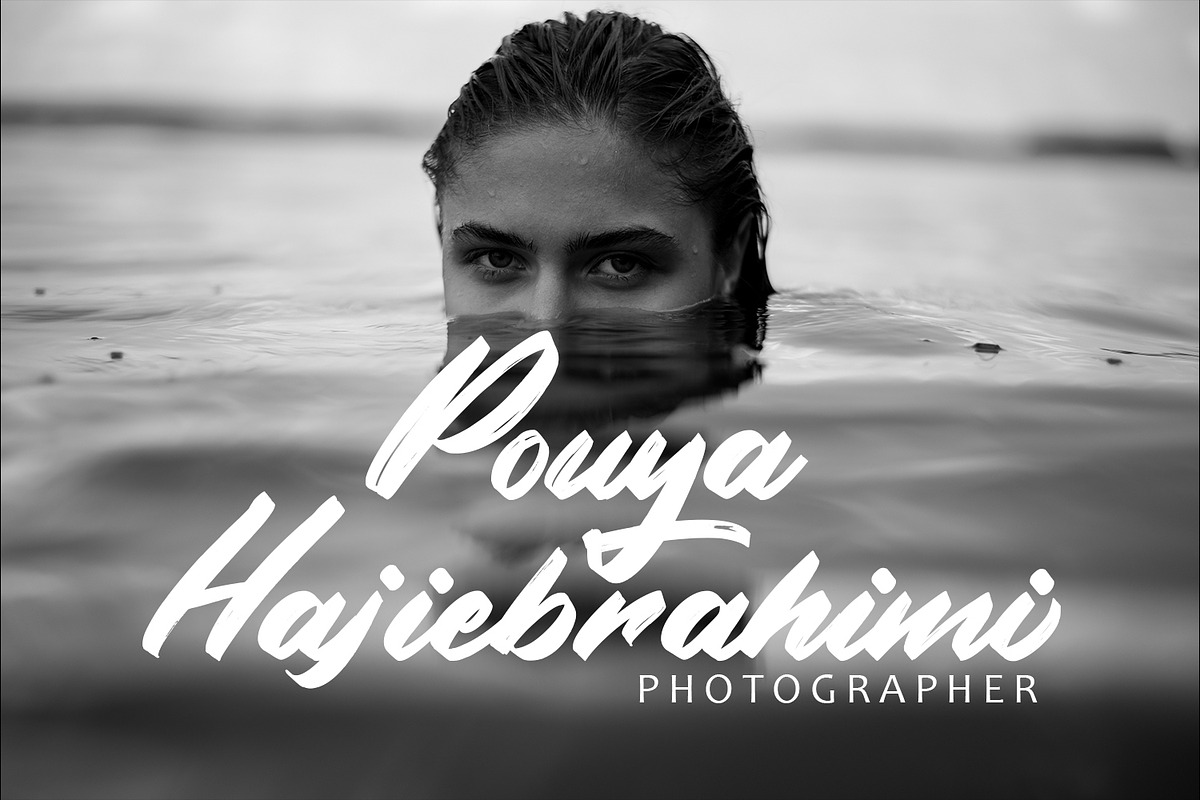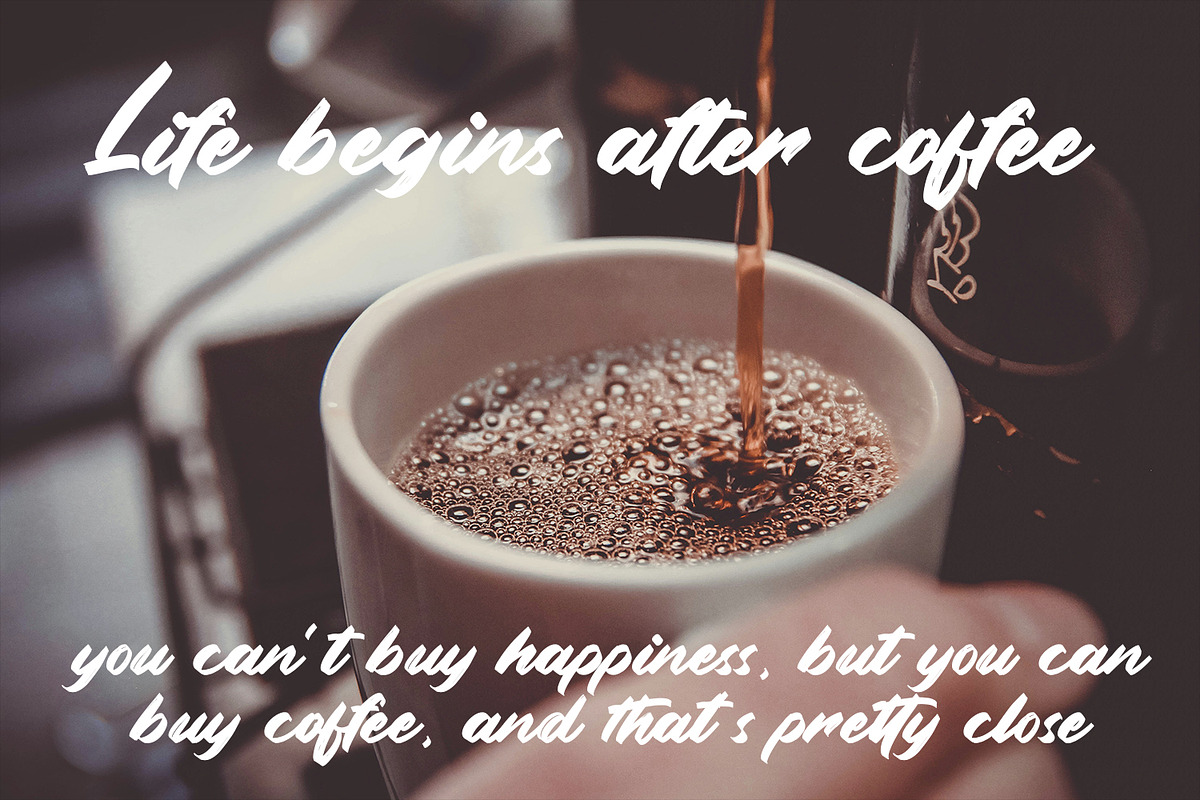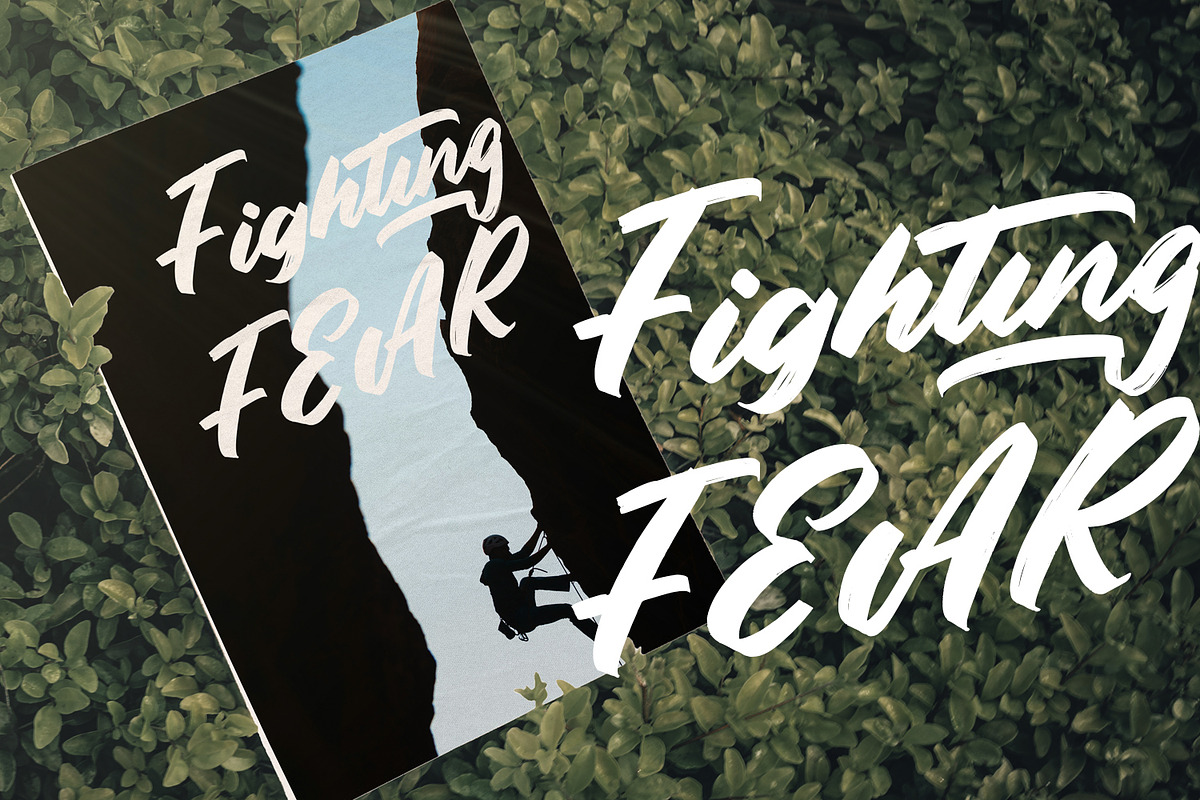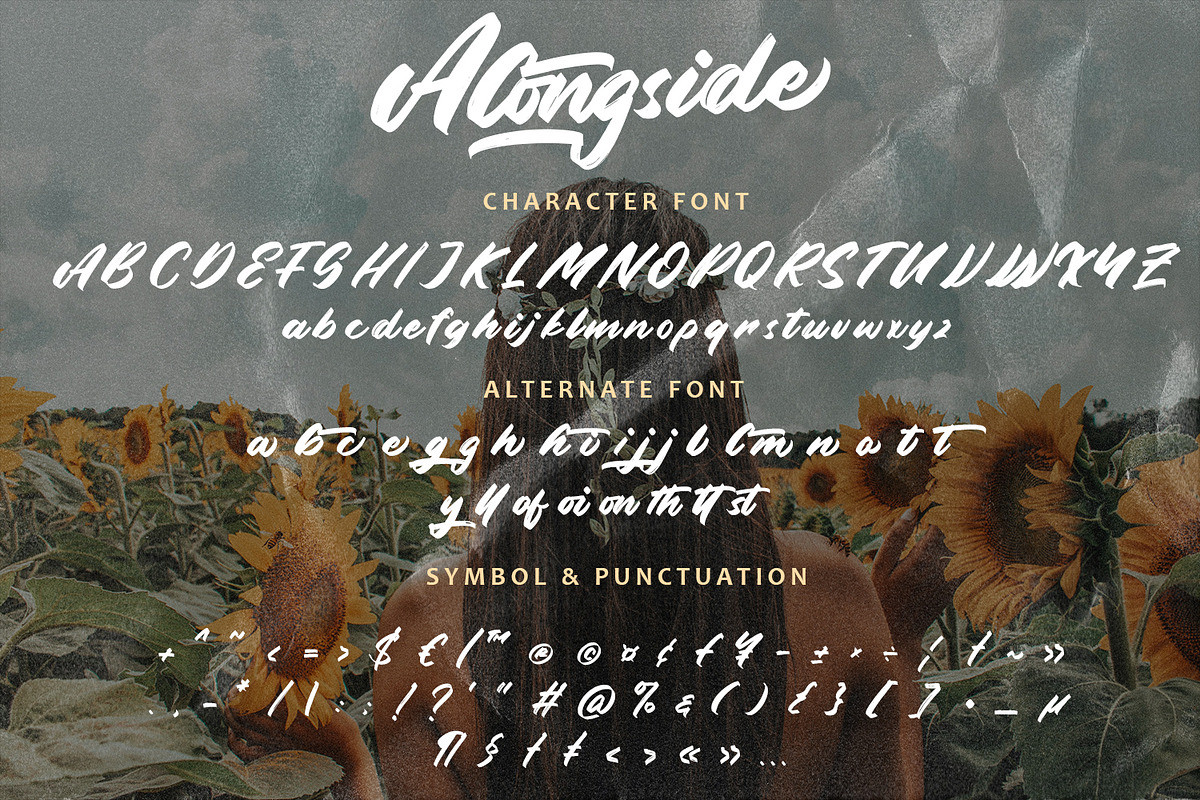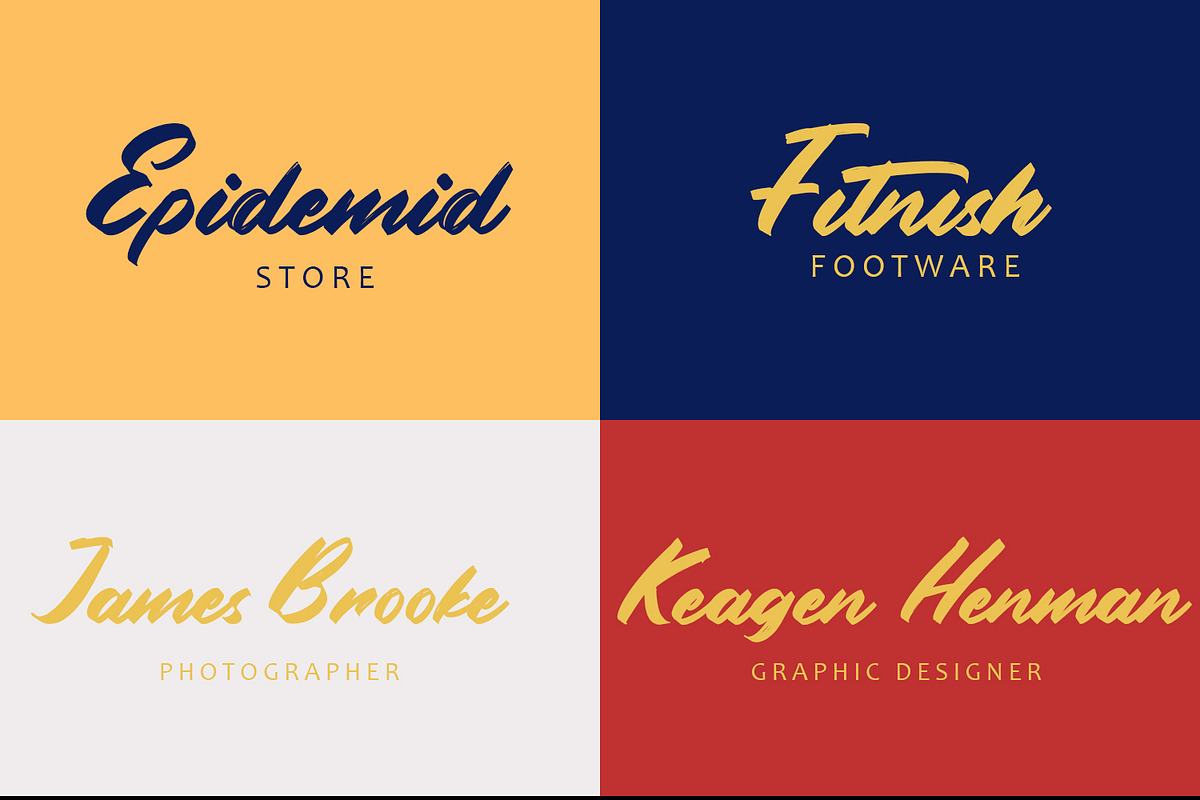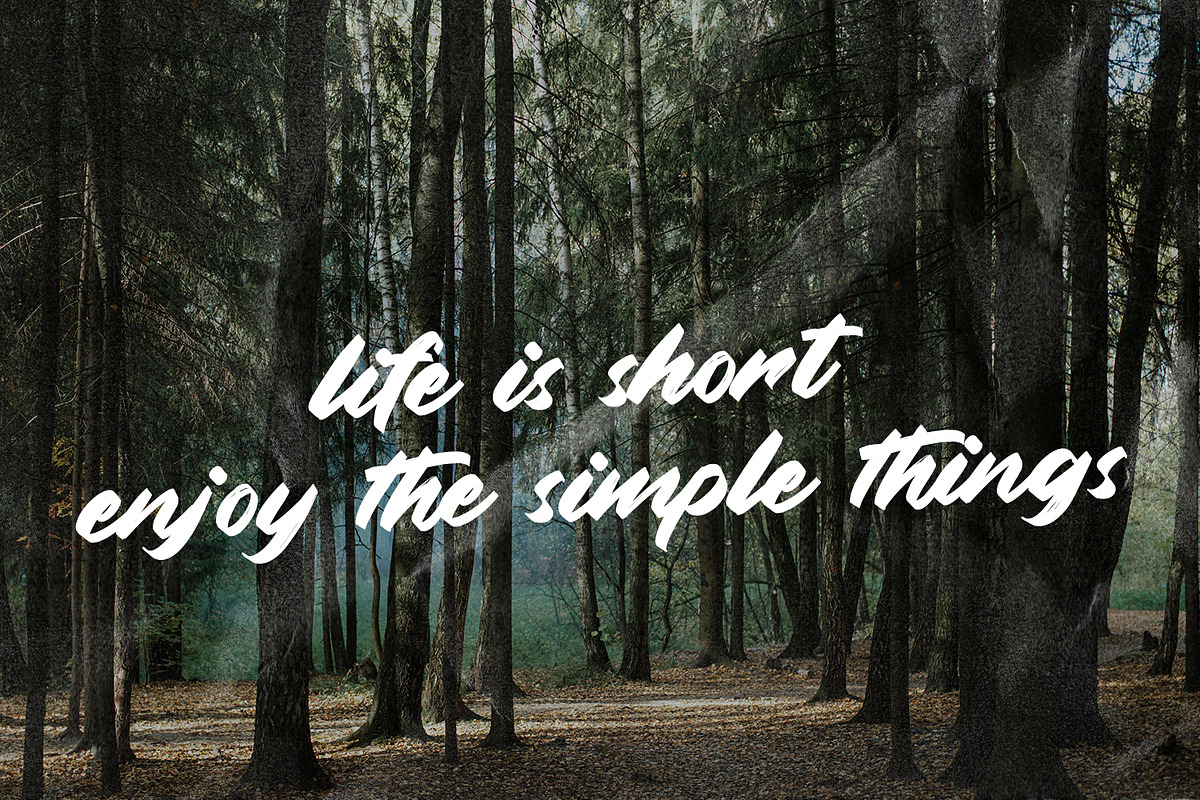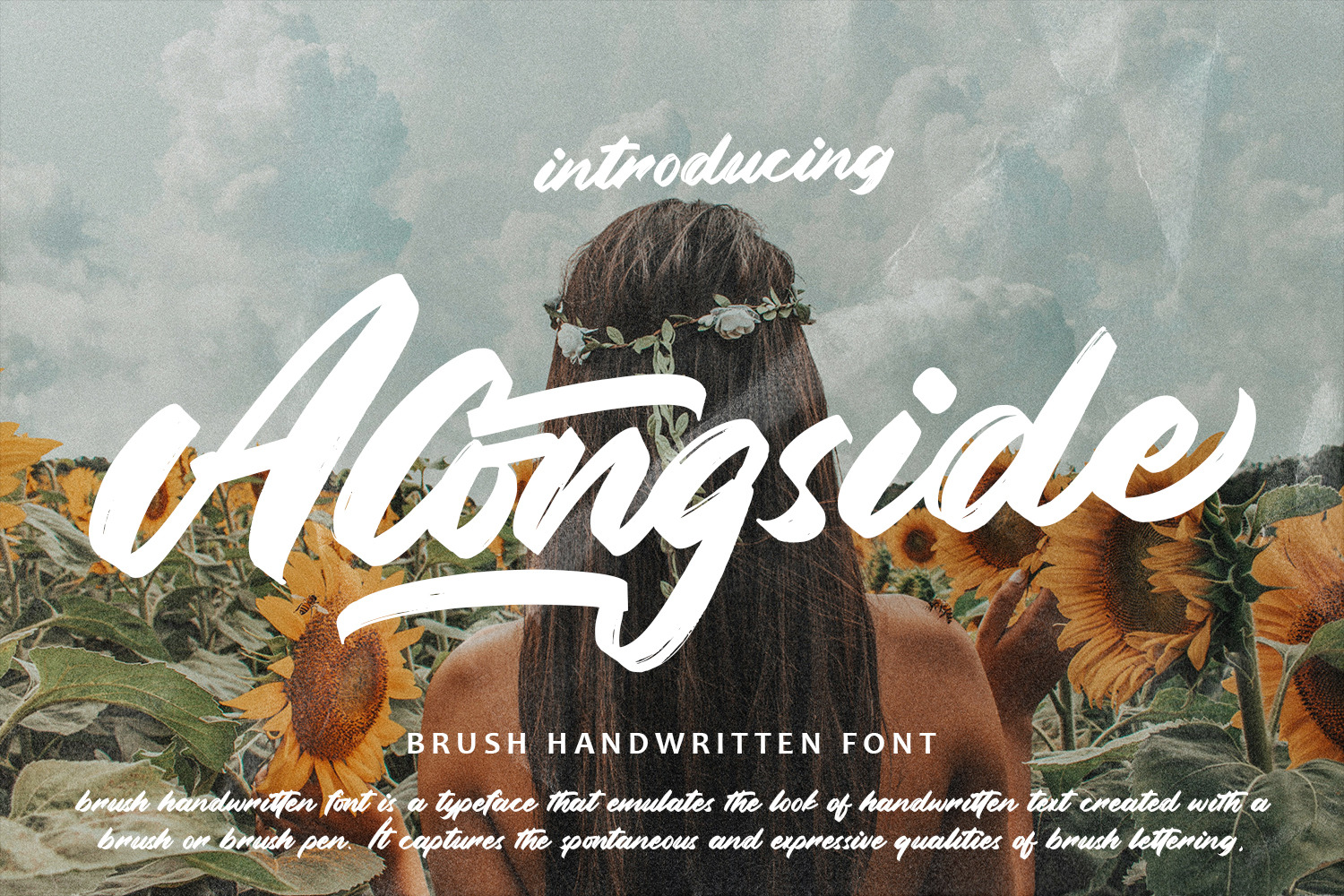
Alongside - Brush Handwritten Font
Alongside Brush Handwritten Font is a typeface that replicates the appearance of text created with a brush or brush pen. This style of font is characterized by its organic and irregular strokes, simulating the natural flow and spontaneity of hand lettering. Here's a breakdown of its key features and benefits:
-Brush Texture: Brush handwritten fonts mimic the texture of brush strokes, with varying degrees of thickness and texture. This creates a dynamic and expressive quality in the letterforms.
-Irregular Letterforms: Unlike traditional fonts, brush handwritten fonts often have irregular shapes and strokes, resembling the nuances of hand-drawn lettering. This adds a unique and authentic touch to the text.
-Fluidity and Movement: The strokes in brush handwritten fonts flow smoothly, conveying a sense of movement and energy. This creates a lively and dynamic appearance in the typography.
-Casual and Informal Style: Brush handwritten fonts have a relaxed and informal style, making them ideal for projects that aim to convey a sense of warmth, friendliness, or creativity.
-Variety of Characters: Brush handwritten fonts typically include a wide range of characters, including uppercase and lowercase letters, numerals, punctuation marks, and special symbols. This ensures versatility and compatibility with various design needs.
-Expressiveness: Brush handwritten fonts allow designers to convey emotion, personality, and style through typography. They add a human touch to designs, making them feel more authentic and relatable.
-Versatility: Despite their casual appearance, brush handwritten fonts can be versatile and adaptable to different design contexts. They can be used for everything from logos and headlines to body text and decorative elements.
-Creativity: Brush handwritten fonts inspire creativity and experimentation in design. Designers can play with different styles, effects, and treatments to achieve the desired look and feel for their projects.
-Authenticity: Brush handwritten fonts add a handcrafted and artisanal feel to designs, making them stand out and feel more genuine. They are perfect for projects that value authenticity and craftsmanship.
-Ease of Use: Unlike hand-lettered brushwork, brush handwritten fonts offer the convenience of digital typefaces. They can be easily scaled, edited, and manipulated in design software, saving time and effort for designers.
In summary, a Brush Handwritten Font is a versatile and expressive typeface that adds warmth, personality, and creativity to design projects